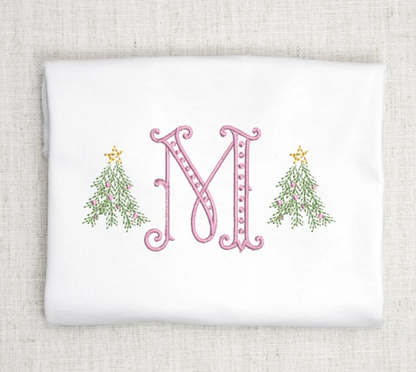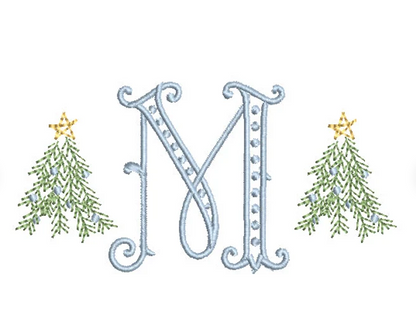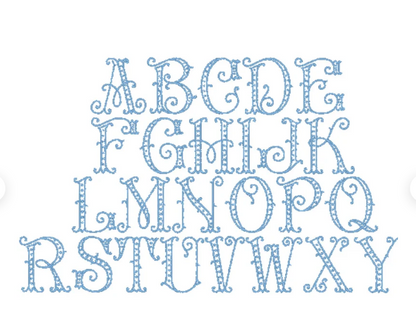
Christmas Tree Monogram Font with Tree Decoration
Trees and Font Included in Design
Embroidery BUNDLE-font and tree design included
Vintage Christmas Tree Embroidery Design-mini included for monogram decoration-full font included